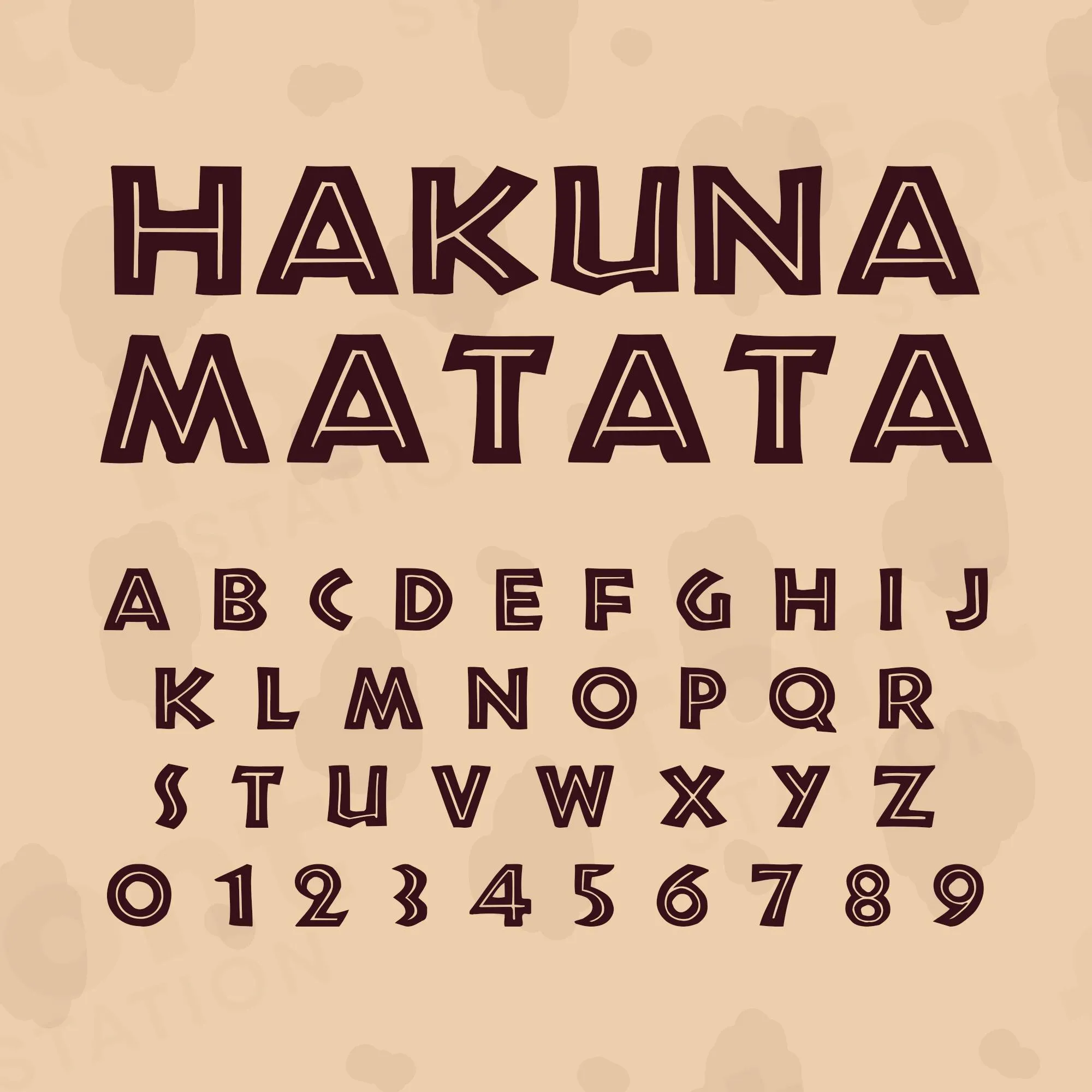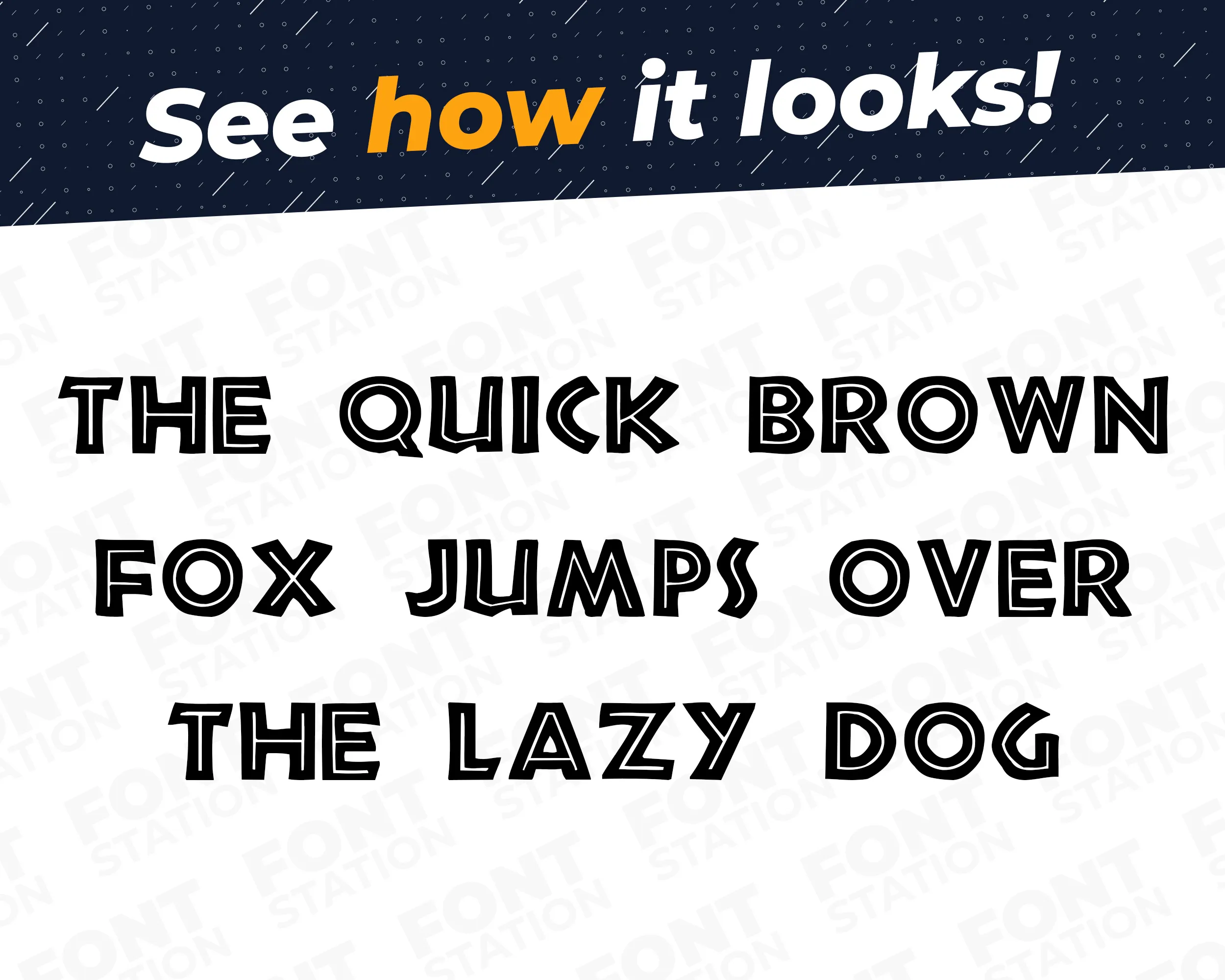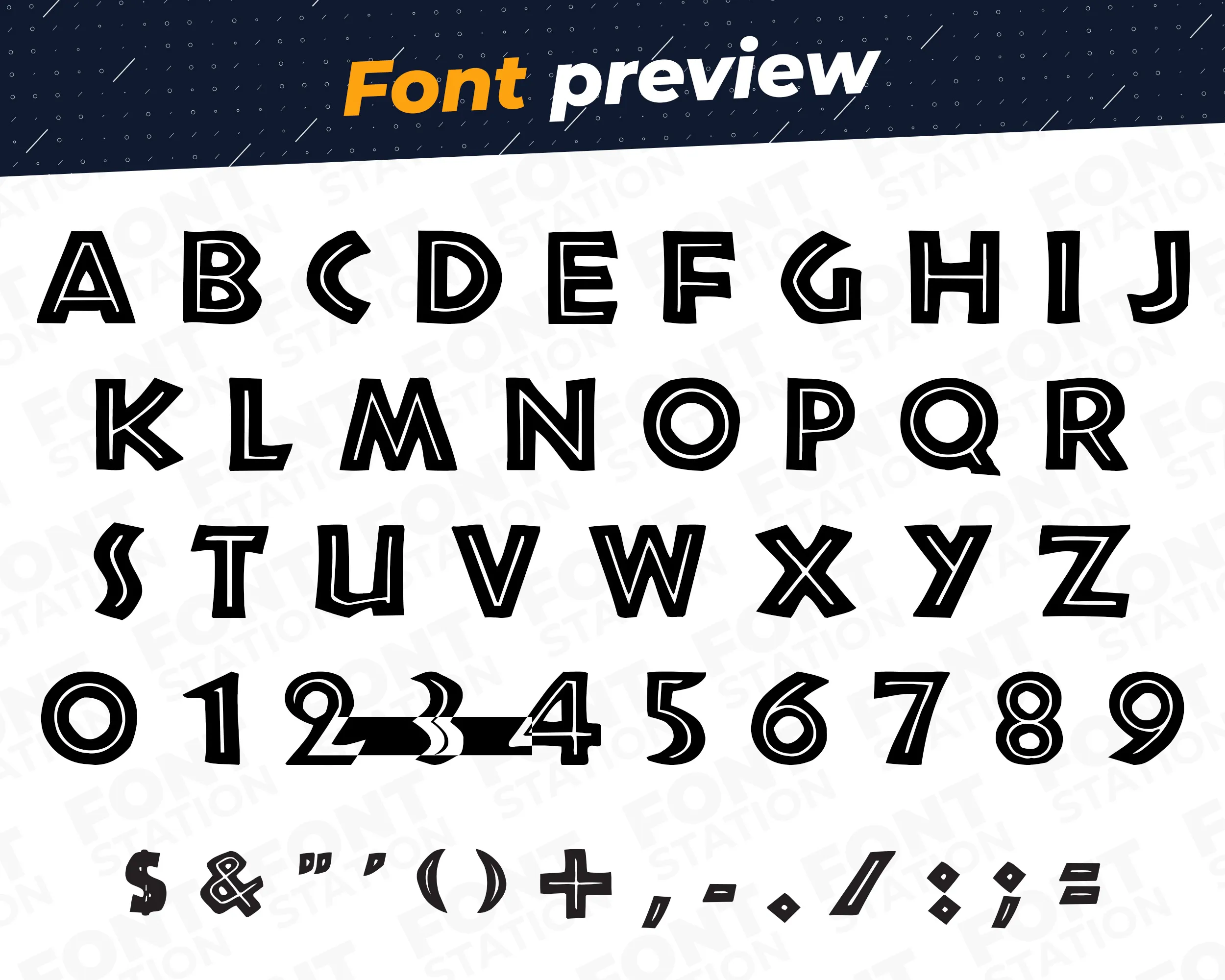
Our Hakuna Matata font, inspired from Lion King typeface
Grab your computer, tablet or other device and start creating right now with our Hakuna Matata font letters! Our Hakuna Matata typography is inspired from Lion King movie font, making it ideal for various digital creations (logo, word…), sublimation, cake toppers, stickers, event decorations, and more.